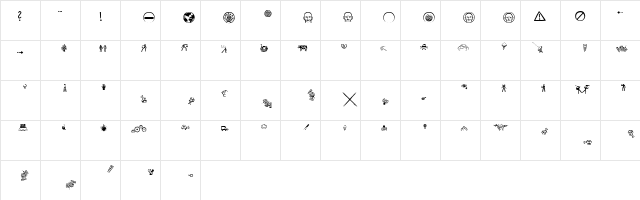
Complete Elementary Medium glyph index. Displaying only characters natively supported by Elementary Medium font.
Elementary is a composed and adaptable typeface that performs quietly and consistently across a wide range of design contexts.